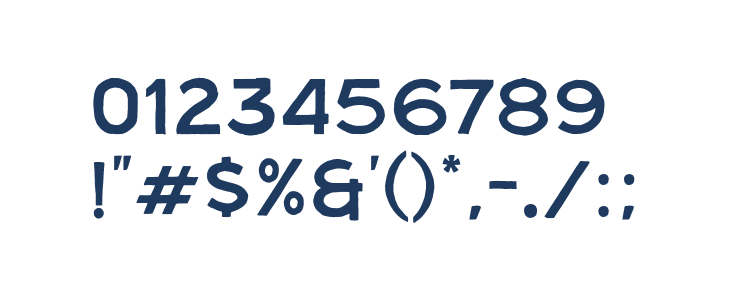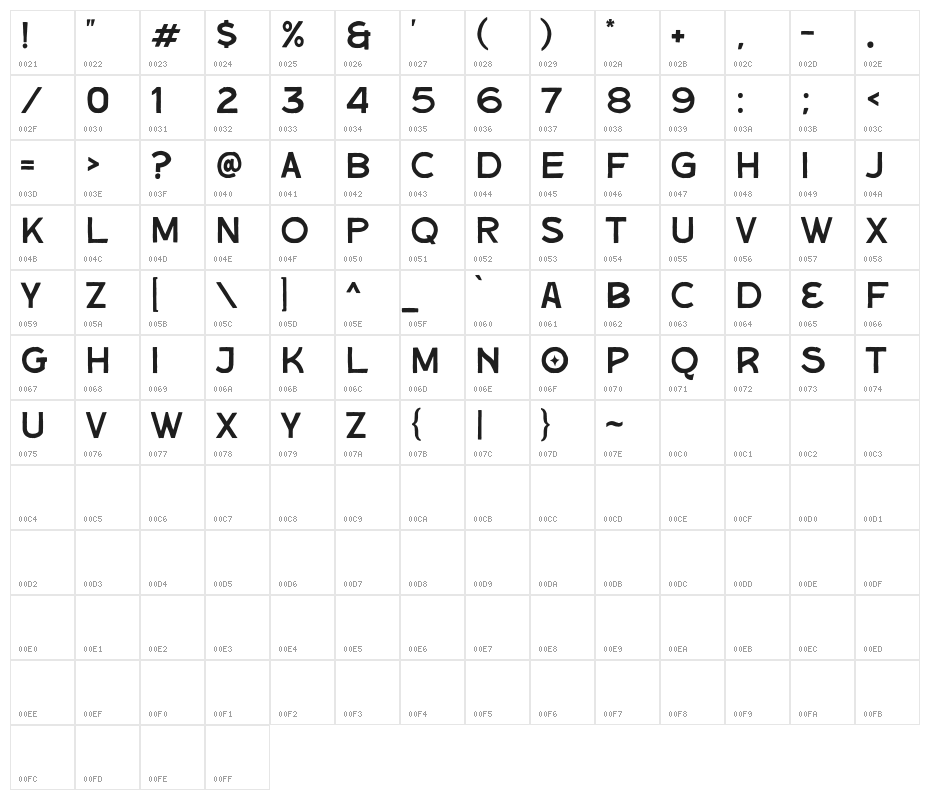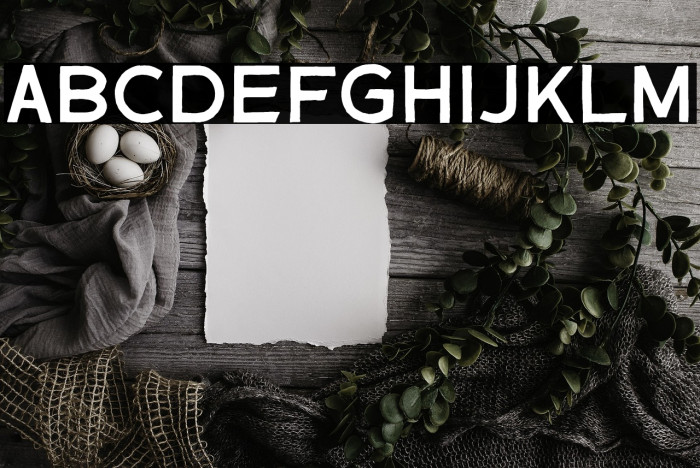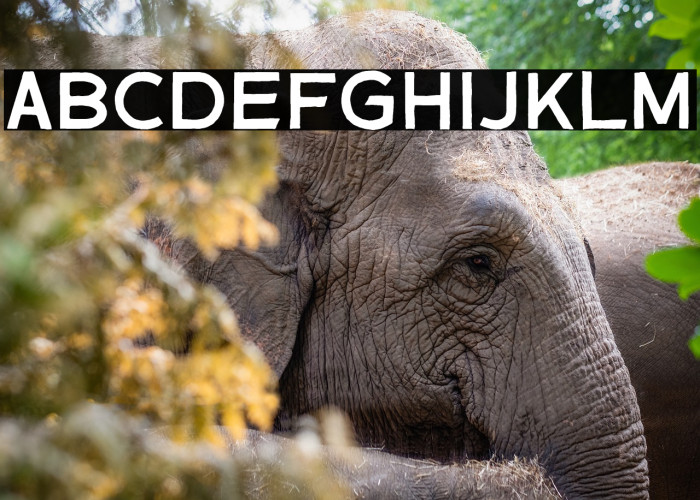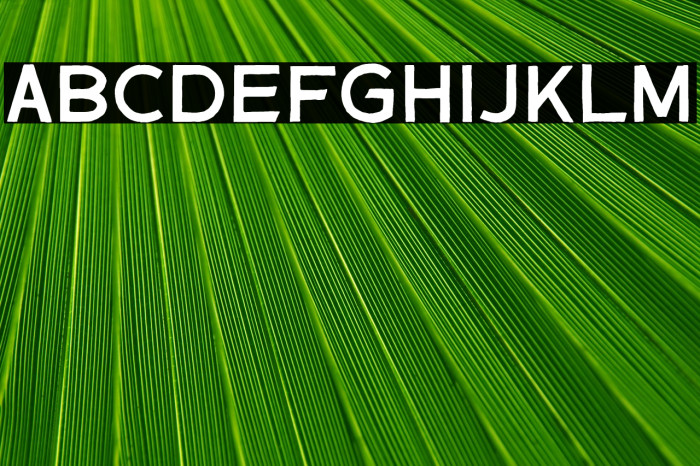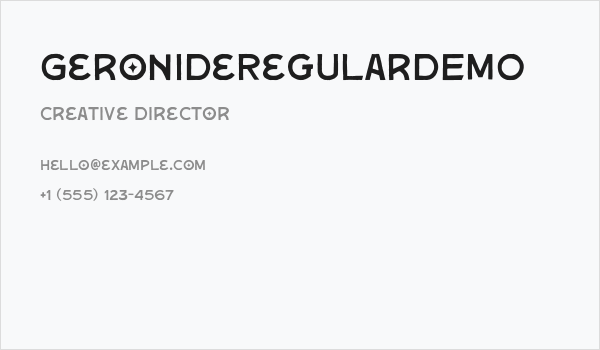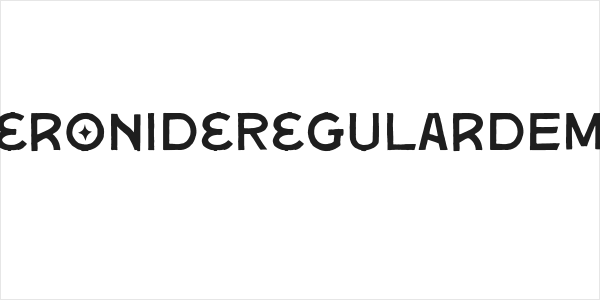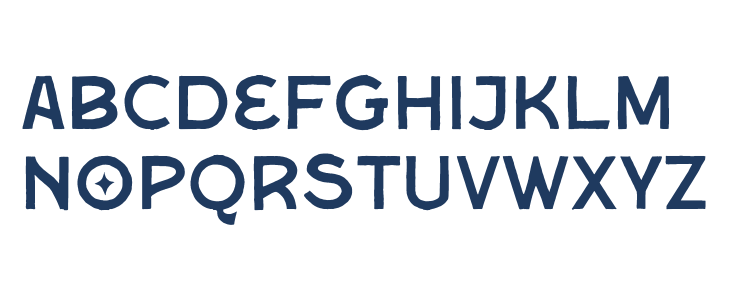
GeronideRegularDEMO Font
GeronideRegularDEMO Description
This font features a bold and distinctive style with a slightly rough texture, giving it a handcrafted appearance. The characters are uniformly bold, with consistent stroke widths that contribute to a strong visual impact. The uppercase and lowercase letters maintain a cohesive design, while the numerals and special characters are crafted to match the overall aesthetic. The font's unique character is enhanced by its subtle irregularities, which add a touch of personality and charm. Its boldness and clarity make it suitable for a variety of design applications.
| Proposed Projects | Ideal for branding, posters, headlines, and any project requiring a strong, handcrafted look. |